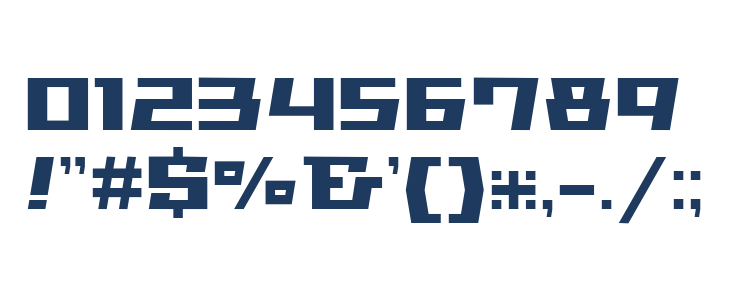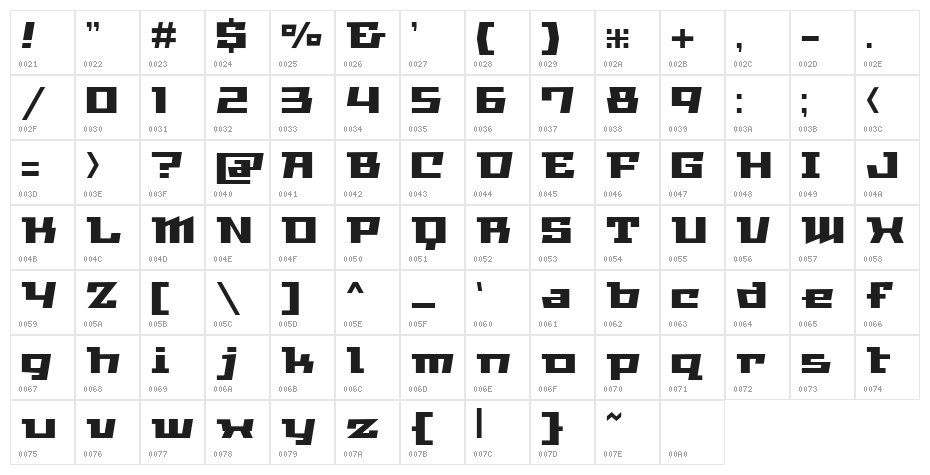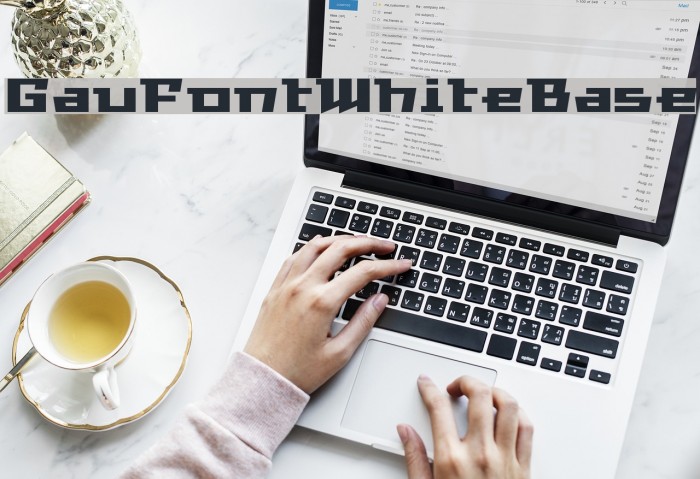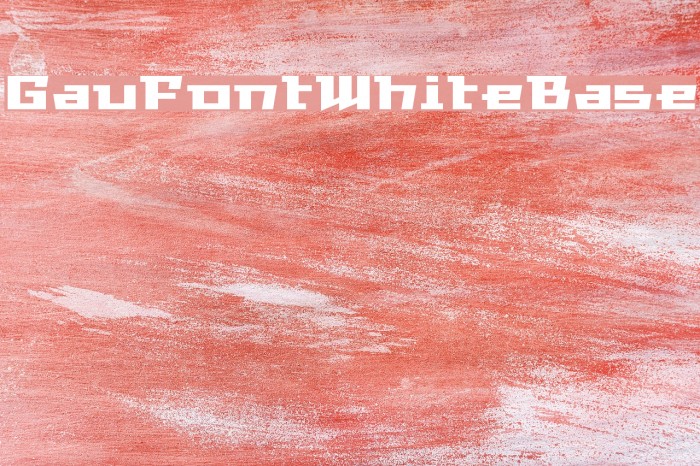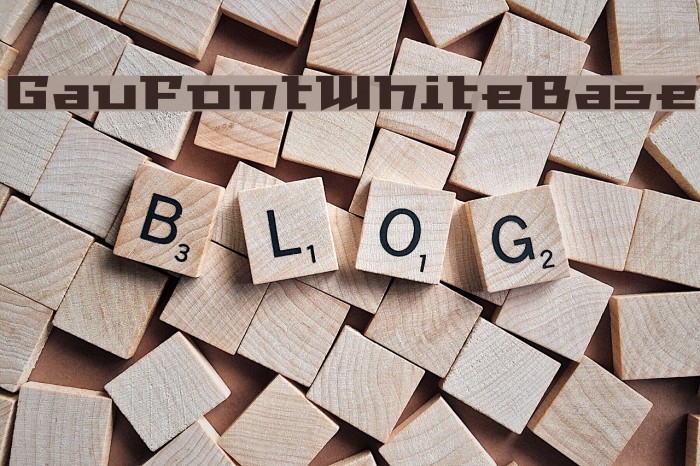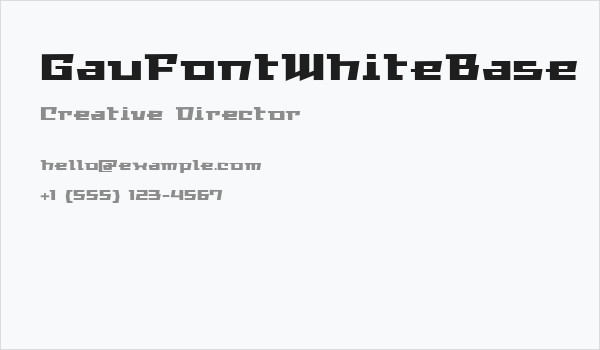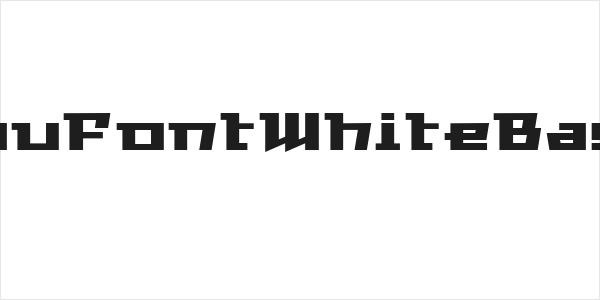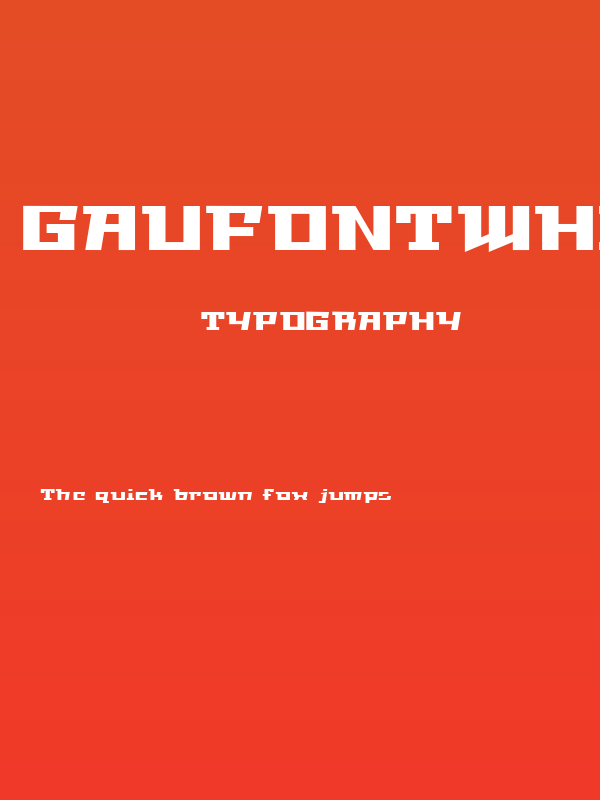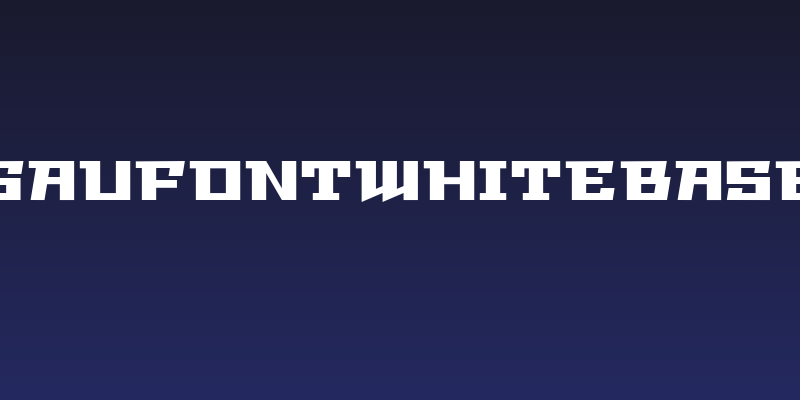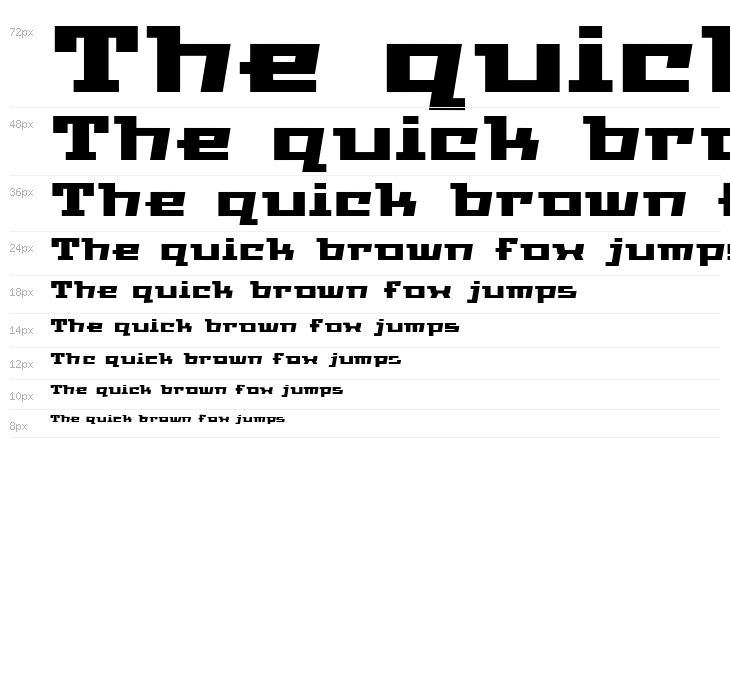
GauFontWhiteBase Font
GauFontWhiteBase Description
This font features a bold and angular design, characterized by sharp edges and a geometric structure. The uppercase letters are particularly striking, with a blocky appearance that conveys strength and modernity. The lowercase letters maintain the same angular style, ensuring consistency across the typeface. Numbers and special characters are designed with the same boldness, making them stand out. The overall aesthetic is futuristic and dynamic, suitable for projects that require a strong visual impact.